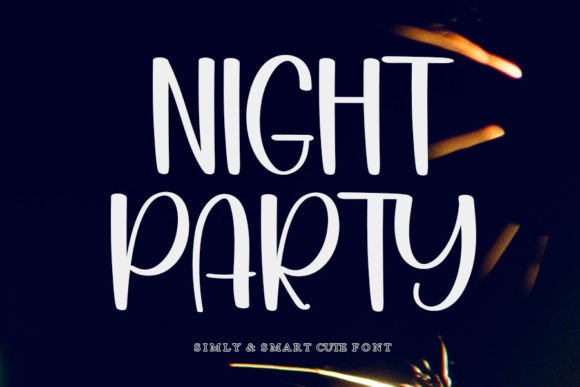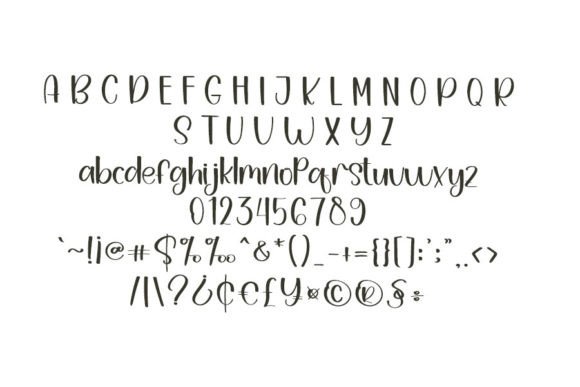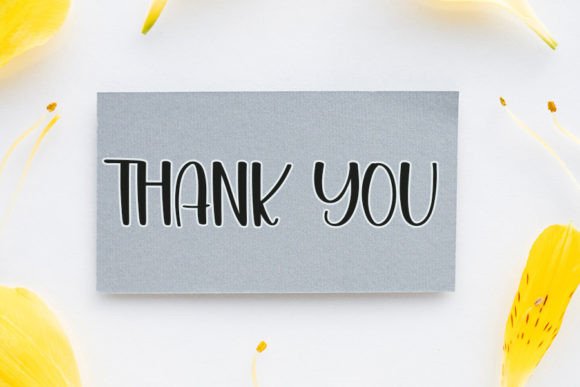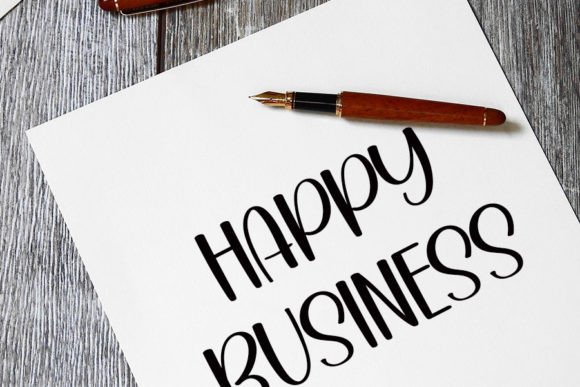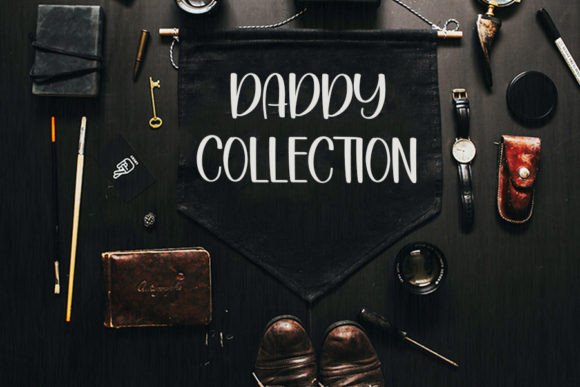
Night Party Font
What Is Night Party Font?
Night Party Font is a trendy handwritten script that blends classic calligraphy with a fresh, modern vibe. Every letter is designed with smooth curves and elegant details, giving your text a refined, timeless feel. Because of its stylish character, this font is perfect for projects that need a polished and luxurious touch.
You will see how easily Night Party elevates your designs and makes them stand out.
Night Party is a versatile font you can use across many creative contexts. For example, it’s perfect for wedding invitations and event stationery. The graceful script adds a romantic and upscale impression that feels unforgettable.
In addition, it works beautifully for logos and branding. Whether you design for boutiques, beauty brands, or creative businesses, Night Party helps your visual identity feel unique and professional.
You can also use it for social media graphics, quotes, and Pinterest posts. The elegant handwritten style draws attention and adds sophistication.
When you create product packaging, labels, or tags, Night Party delivers a handcrafted, premium look that sets your design apart.
Moreover, it’s ideal for website headers, certificates, posters, and personal projects. Even minimalist layouts look more engaging with this font.
Why Should You Choose Night Party Font?
There are many reasons to consider Night Party for your next project. First, it’s easy to read, even with its graceful flourishes. Whether you use it for big headlines or smaller text, every letter stays clear and balanced.
Also, this font pairs nicely with clean serif or sans-serif fonts. This helps you create cohesive, modern layouts effortlessly.
Designers appreciate that it looks polished right out of the box, saving time while delivering professional results.
Night Party Font brings elegance and personality to every project. For example, when you want your designs to feel sophisticated and memorable, this font makes it simple.
Even the simplest layouts look more refined with Night Party’s flowing handwritten style. Whether you create branding, invitations, or social media posts, your work will stand out beautifully.
Using a premium script font also shows your dedication to detail and quality. This builds trust with your audience and makes your designs more impactful.
Night Party Font is more than just a typeface—it’s a creative tool that helps you communicate with clarity and style. From logos and invitations to packaging and quotes, this font adapts easily and leaves a lasting impression.